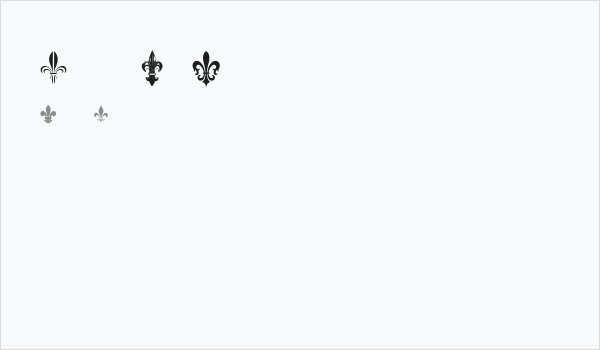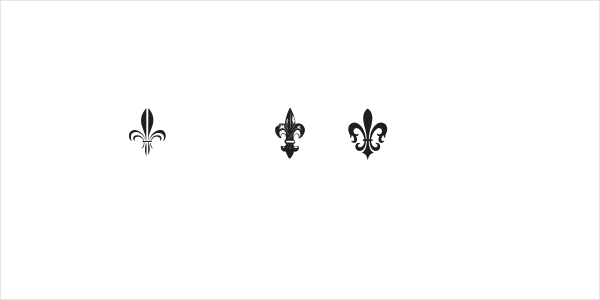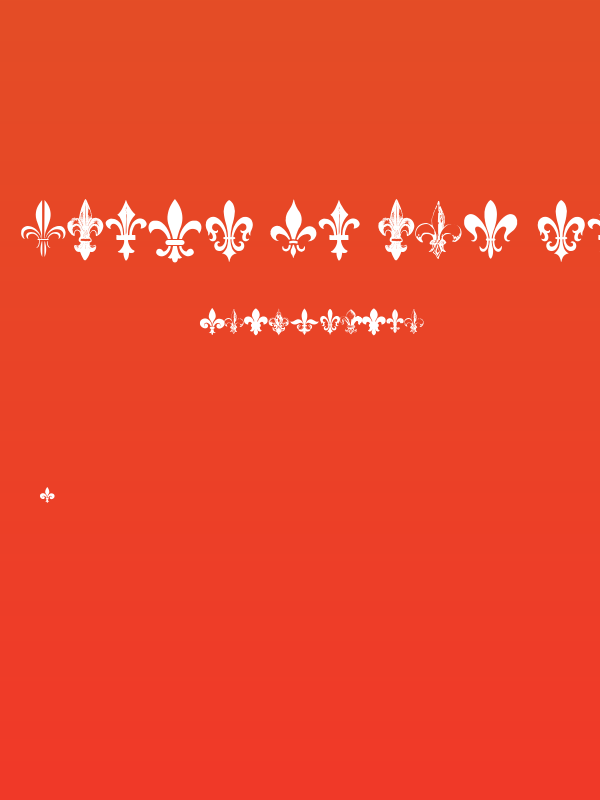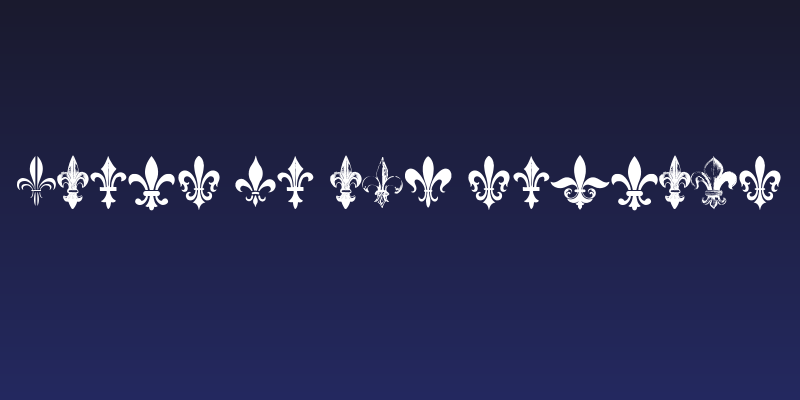
Fleur de Lys Regular Font
Fleur de Lys Regular Description
A decorative symbol font featuring a variety of fleur-de-lys glyphs, each with unique detailing, ranging from ornate and textured to bold and simplified silhouettes.
| Overall Style | Decorative, Vintage, Heraldic |
| Use Case | Logos, Decorative elements, Borders, Themed graphics |
| Proposed Projects | Heraldic designs, invitations, certificates, branding, decorative borders, historical themes. |